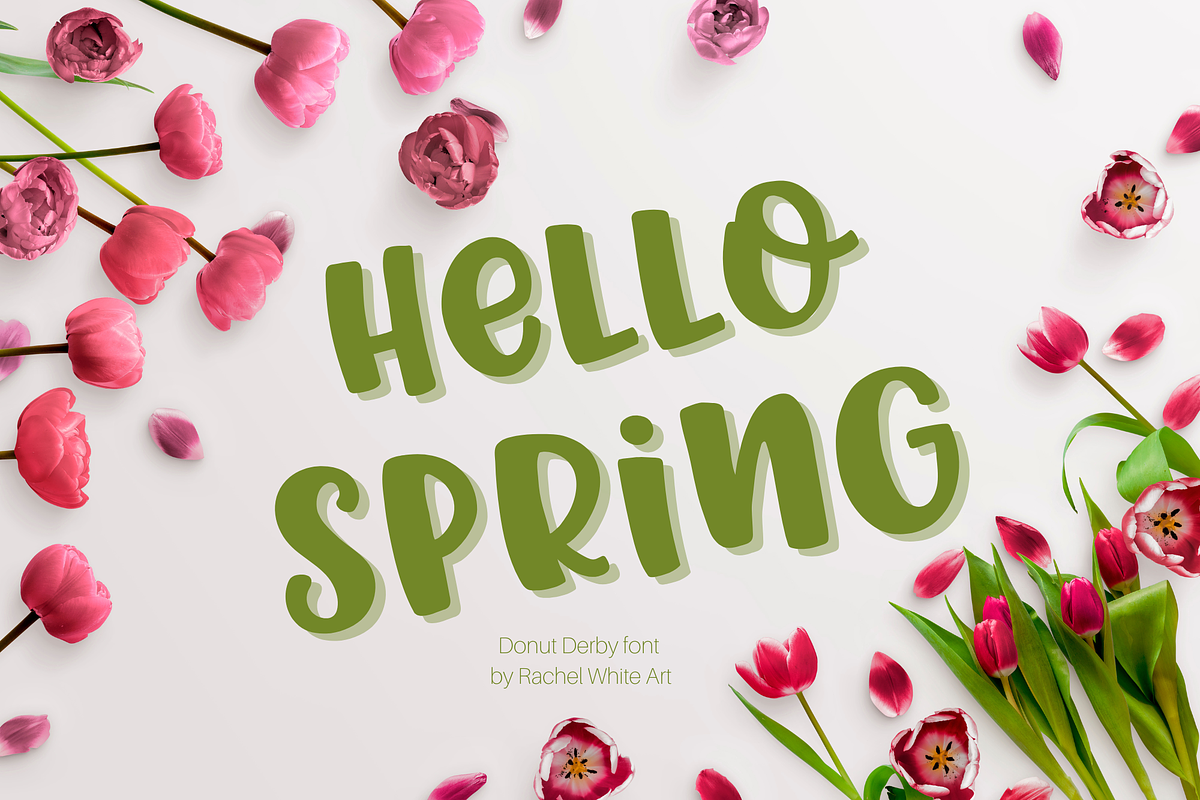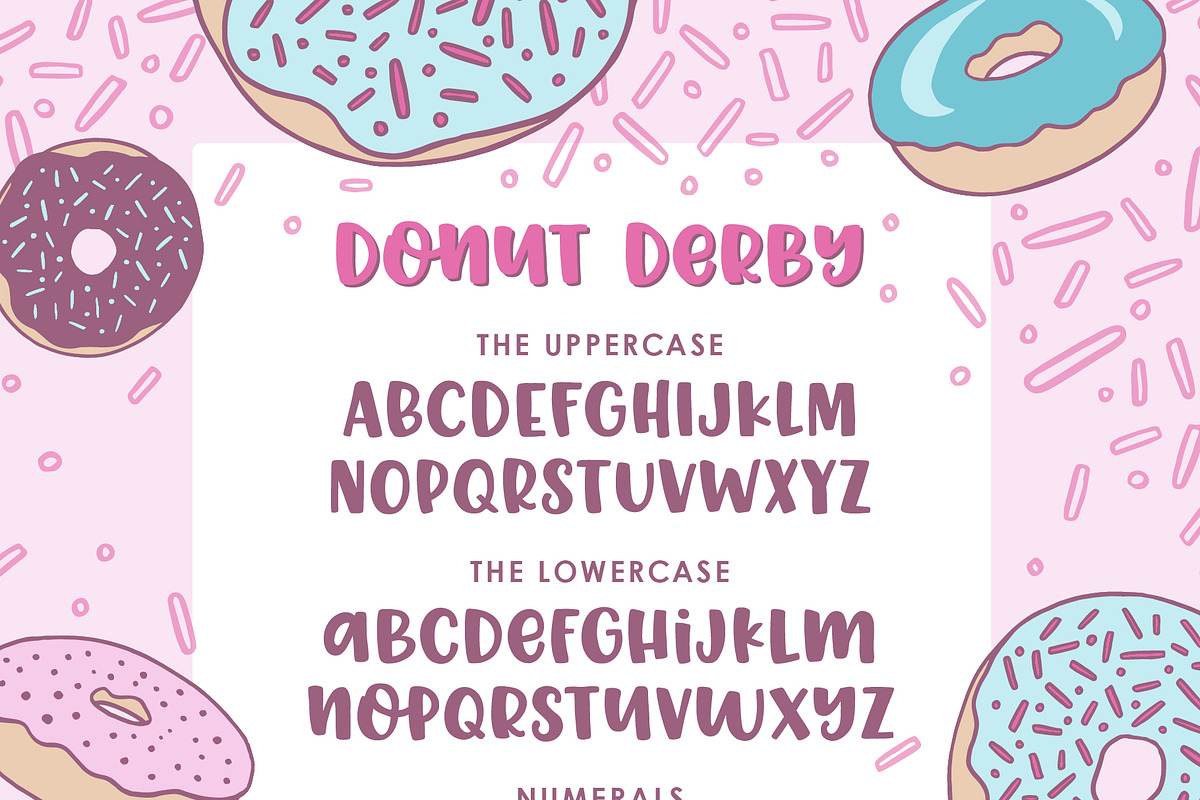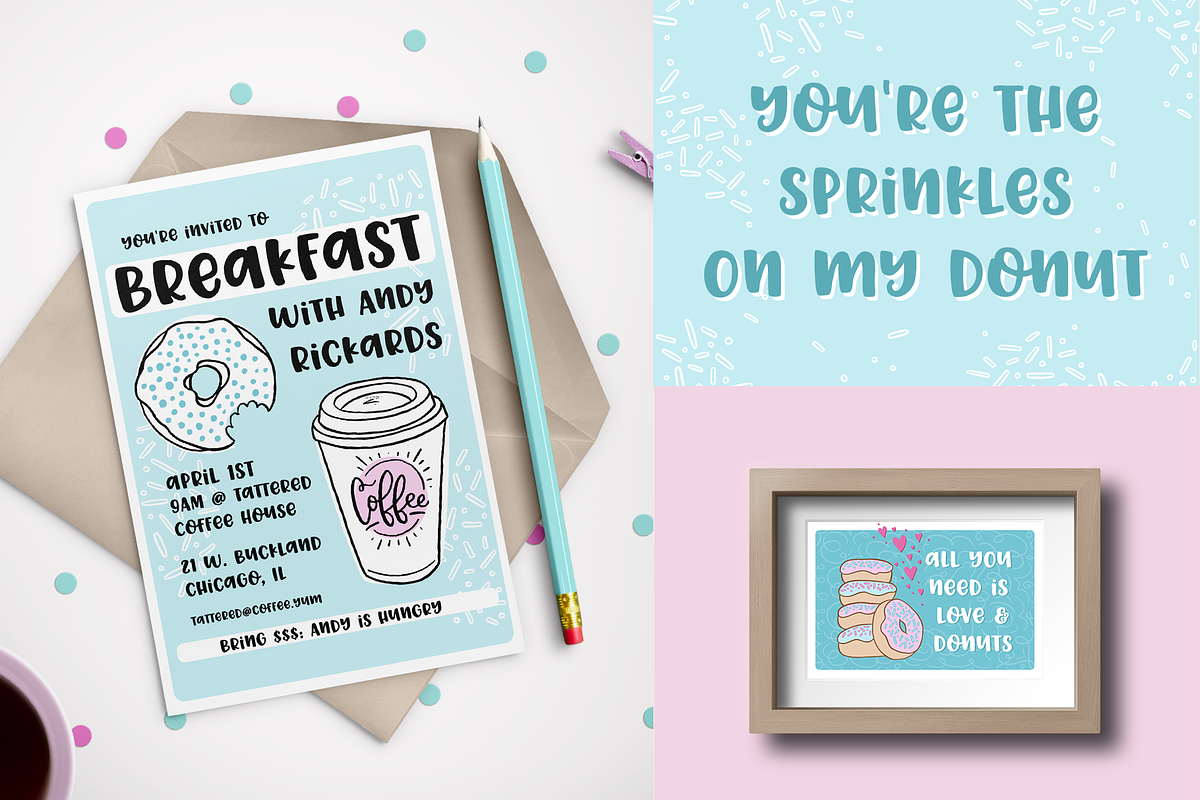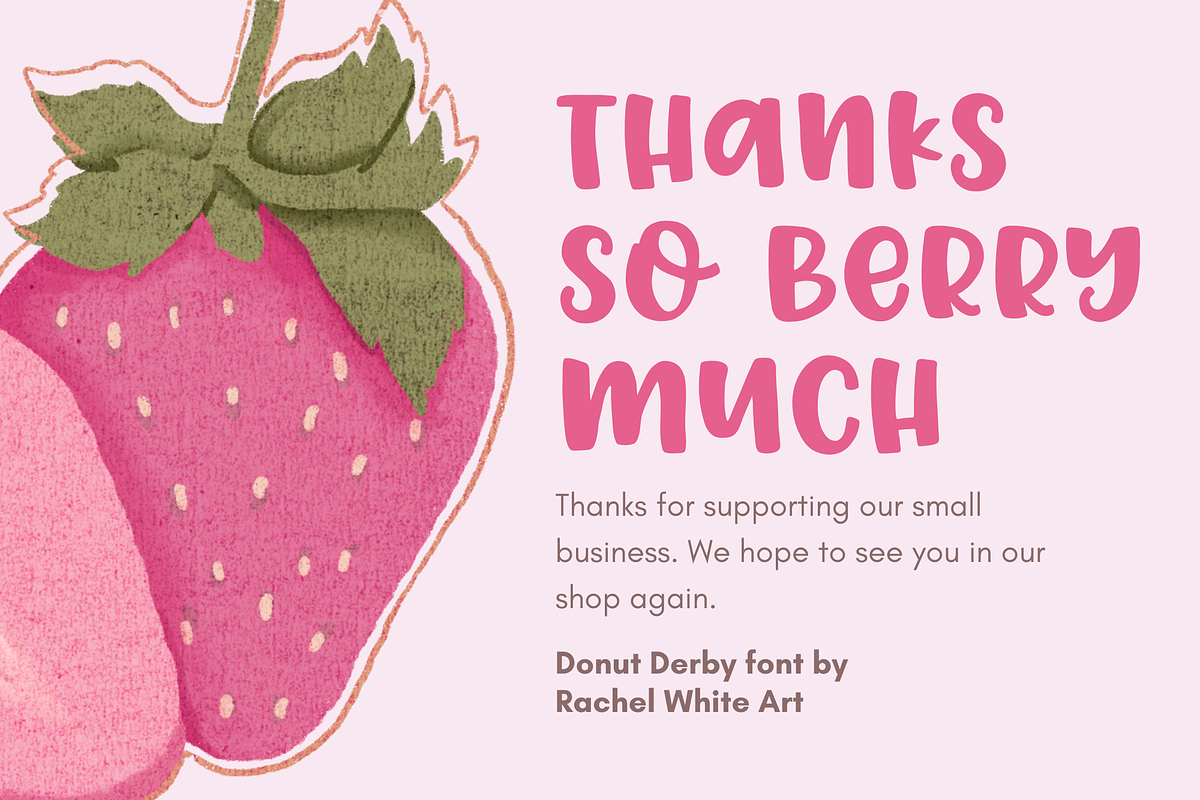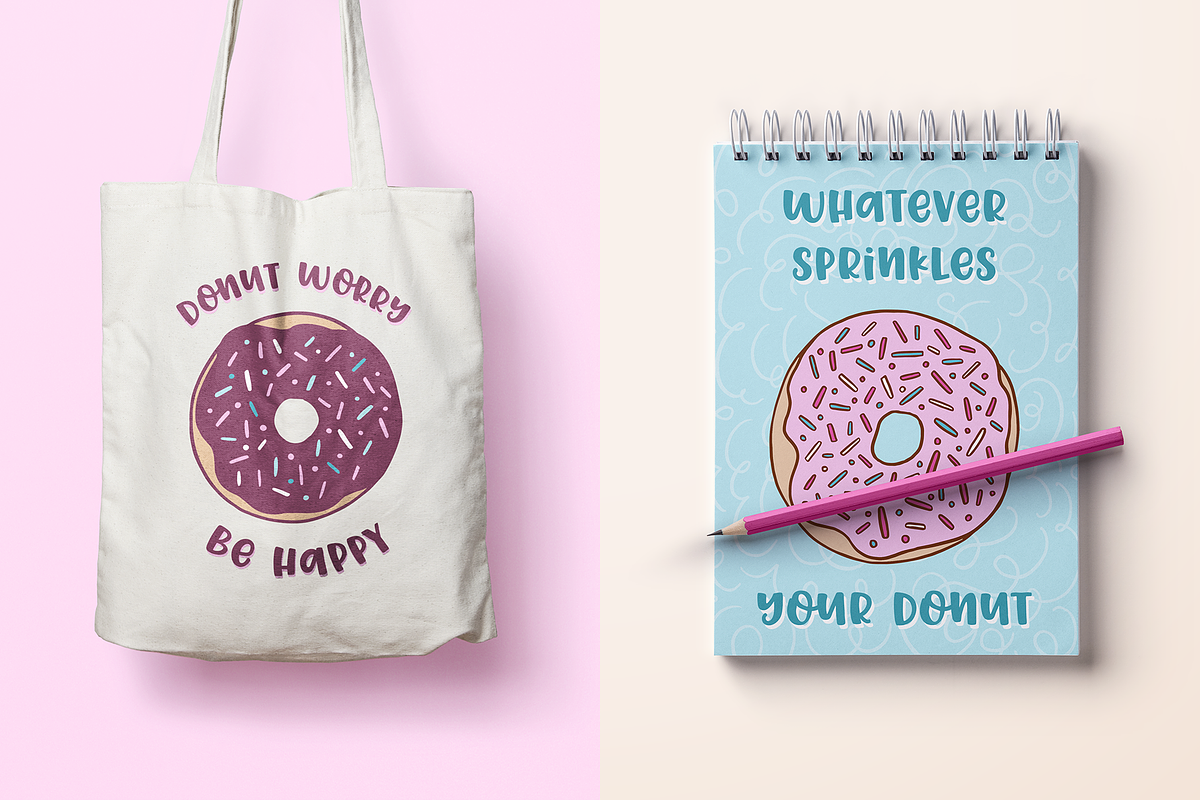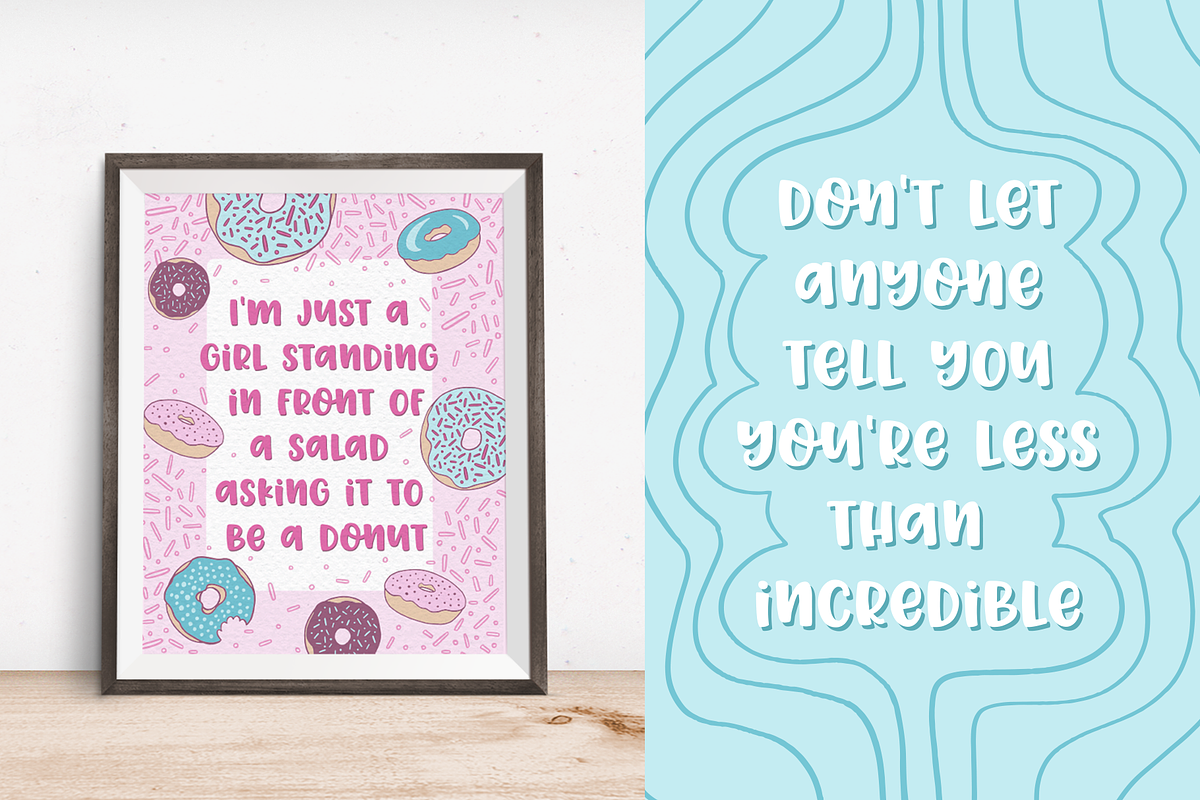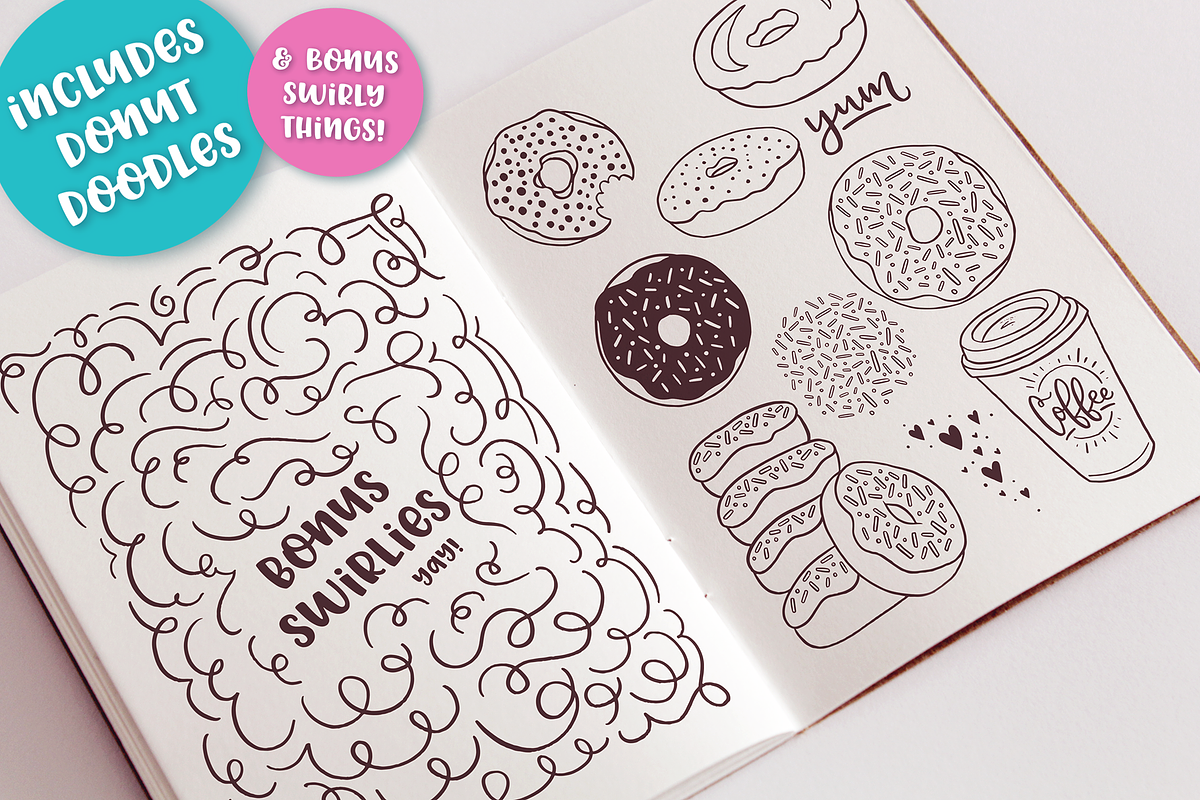
Donut Derby, a tasty caps font
Donut Derby is a fun, chunky all-caps font with a sweet personality! With soft curves and a hand-drawn feel, it’s perfect for designs that need a dose of cute and playful charm.
Use it for party invites, snack packaging, kids’ branding, merch, or anything that needs a cheerful pop. The simple letterforms are easy to read but full of personality—just like a frosted treat with sprinkles on top.
Includes 5 ampersand alternates, because I like to have lots of options for ampersands. :)
Great for: Food packaging, party invites, kids' products, branding, t-shirts, quotes, playful headings